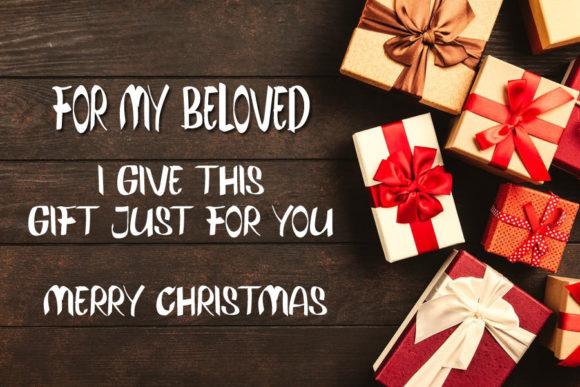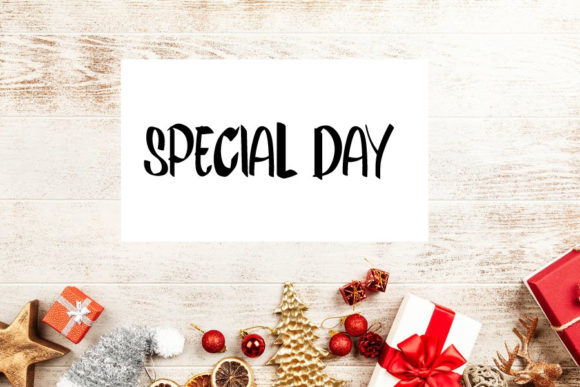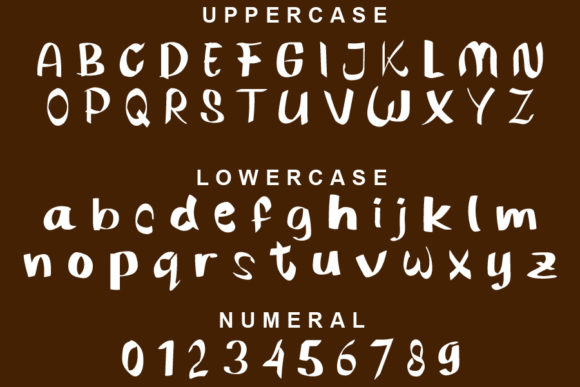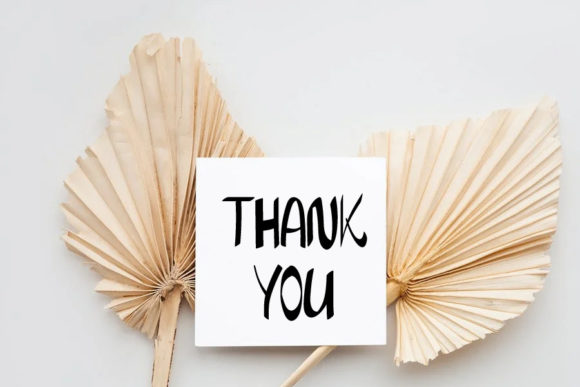
Christmas in December Font: A Trendy and Adaptable Handwritten Font for Your Holiday Creations
As the holiday season approaches, designers and crafters are on the lookout for the perfect font to add a touch of magic to their Christmas creations. If you’re looking for a font that’s both trendy and adaptable, look no further than Christmas in December Font. This casual, handwritten font is perfect for adding a personal touch to your holiday projects, and we’re excited to dive into its features and benefits.
What is Christmas in December Font?
Christmas in December Font is a beautifully designed, handwritten font that’s perfect for creating festive and fun holiday projects. Its casual and adaptable nature makes it suitable for a wide range of applications, from greeting cards and invitations to social media graphics and blog posts.
Key Features of Christmas in December Font
- Trendy and Modern Design: Christmas in December Font boasts a trendy and modern design that’s sure to make your holiday creations stand out.
- Casual and Adaptable: This font is incredibly versatile and can be used for a wide range of projects, from formal to informal.
- Handwritten Style: The font’s handwritten style adds a personal touch to your creations, making them feel more special and unique.
- Easy to Read: Despite its casual nature, Christmas in December Font is easy to read, making it perfect for body text and headlines.
How to Use Christmas in December Font
Using Christmas in December Font is incredibly easy, and its adaptability makes it suitable for a wide range of applications. Here are a few ideas to get you started:
- Greeting Cards and Invitations: Add a personal touch to your holiday greeting cards and invitations with Christmas in December Font.
- Social Media Graphics: Create festive social media graphics that will make your followers smile.
- Blog Posts and Articles: Add a touch of holiday cheer to your blog posts and articles with this beautiful font.
- DIY Crafts and Projects: Use Christmas in December Font to add a personal touch to your DIY crafts and projects.
Tips and Tricks for Using Christmas in December Font
To get the most out of Christmas in December Font, here are a few tips and tricks to keep in mind:
- Experiment with Colors: Don’t be afraid to experiment with different colors to find the perfect combination for your holiday creations.
- Mix and Match Fonts: Try pairing Christmas in December Font with other fonts to create a unique and eye-catching combination.
- Use it for Headlines and Body Text: This font is versatile enough to be used for both headlines and body text, making it perfect for a wide range of applications.
Christmas in December Font is a trendy, casual, and adaptable handwritten font that’s perfect for adding a touch of magic to your holiday creations. Its versatility and ease of use make it suitable for a wide range of applications, from greeting cards and invitations to social media graphics and blog posts. Whether you’re a designer or crafter, this font is sure to become a staple in your holiday toolkit.